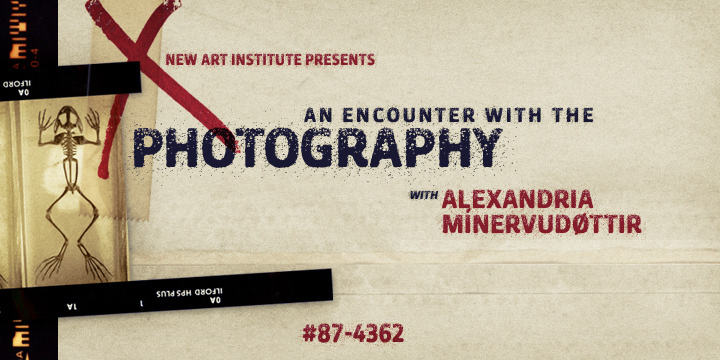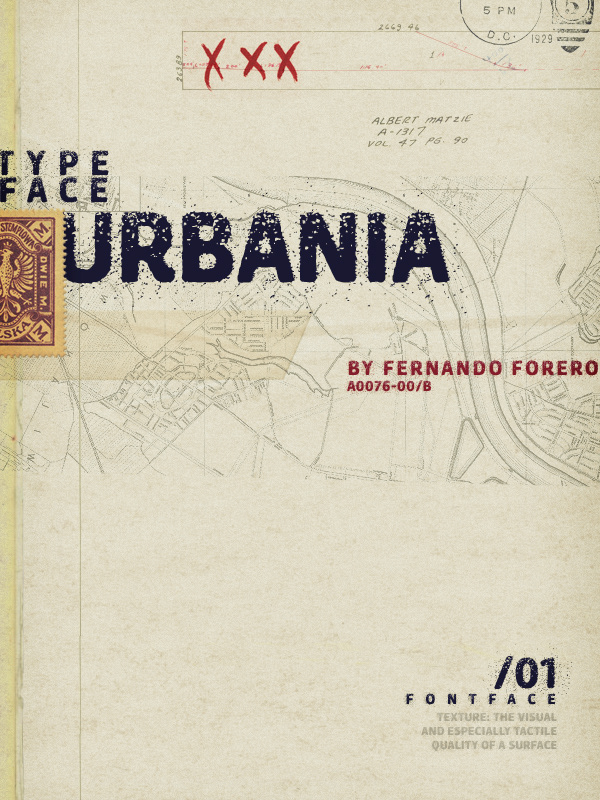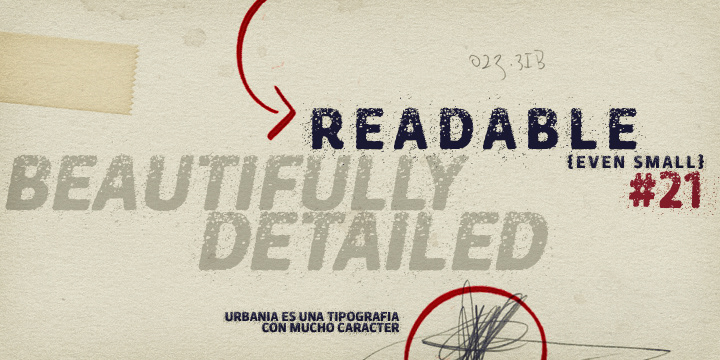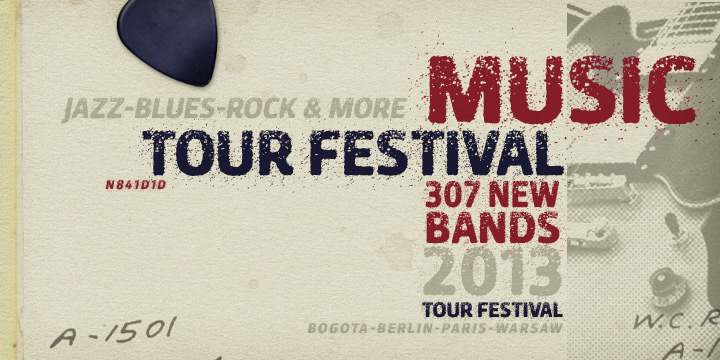
Urbania is a Heavy Distressed Capital Font ideal for a wide range of projects..
Urbania es una Fuerte Texturizada Fuente de Capitales con una presentación ideal para un sinnumero de proyectos.